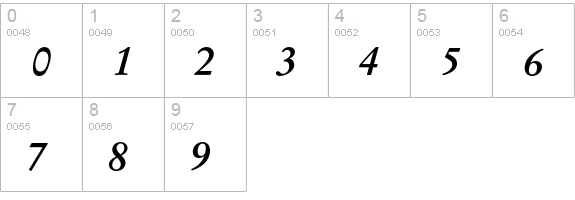
Garamond Stempel BQ Bold Italic Font Details
Garamond Stempel BQ Bold Italic is a strong, high-contrast, italic variant in the Garamond typeface family \xE2\x80\x94 well suited to headlines, attention-grabbing titles, and strong calls-to-action.
Garamond Stempel BQ Bold Italic font is a striking and elegant typeface that exudes sophistication and class. With its bold weight and italic styling, this font is perfect for adding a touch of drama and flair to any design project. The timeless and traditional Garamond typeface combined with the modern boldness of the Stempel design creates a unique and eye-catching look that is sure to stand out. And the best part? This font is available for free download at FontsMarket.com. Now you can easily elevate your designs with this beautiful and versatile font without breaking the bank. Whether you're working on a branding project, a website design, or a print publication, Garamond Stempel BQ Bold Italic font is a fantastic choice that will help your work shine. Download it today and let your creativity soar!